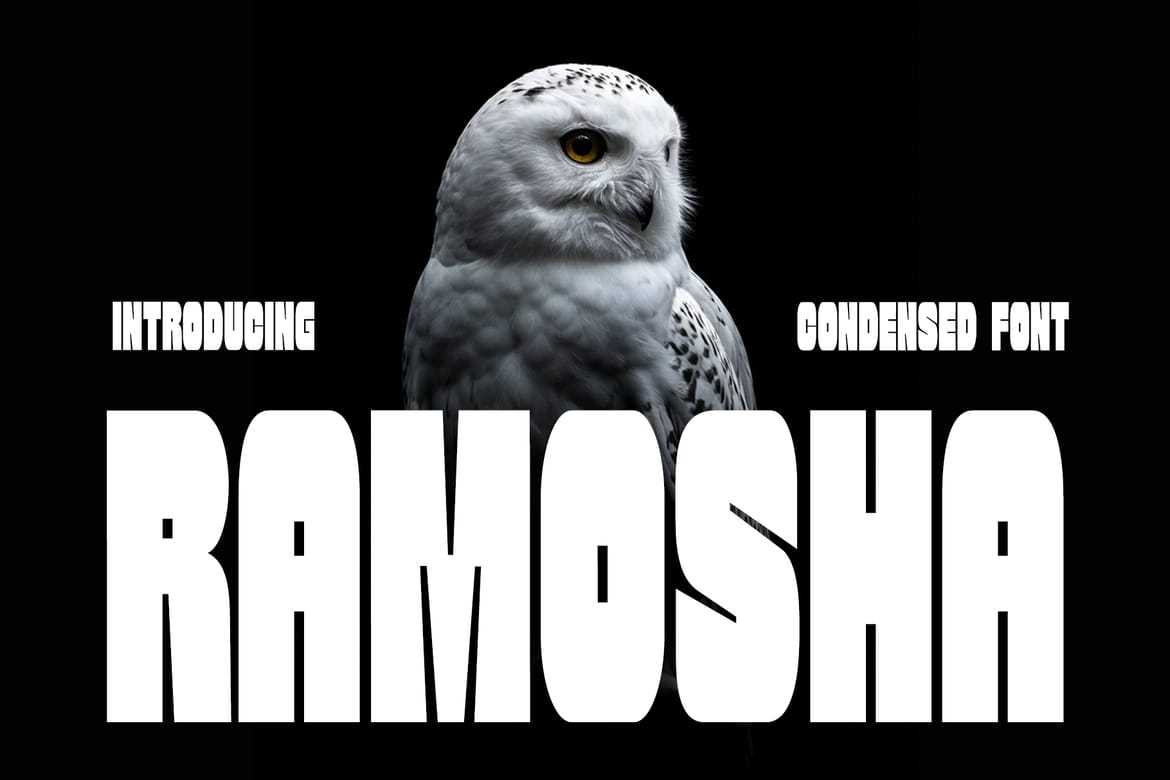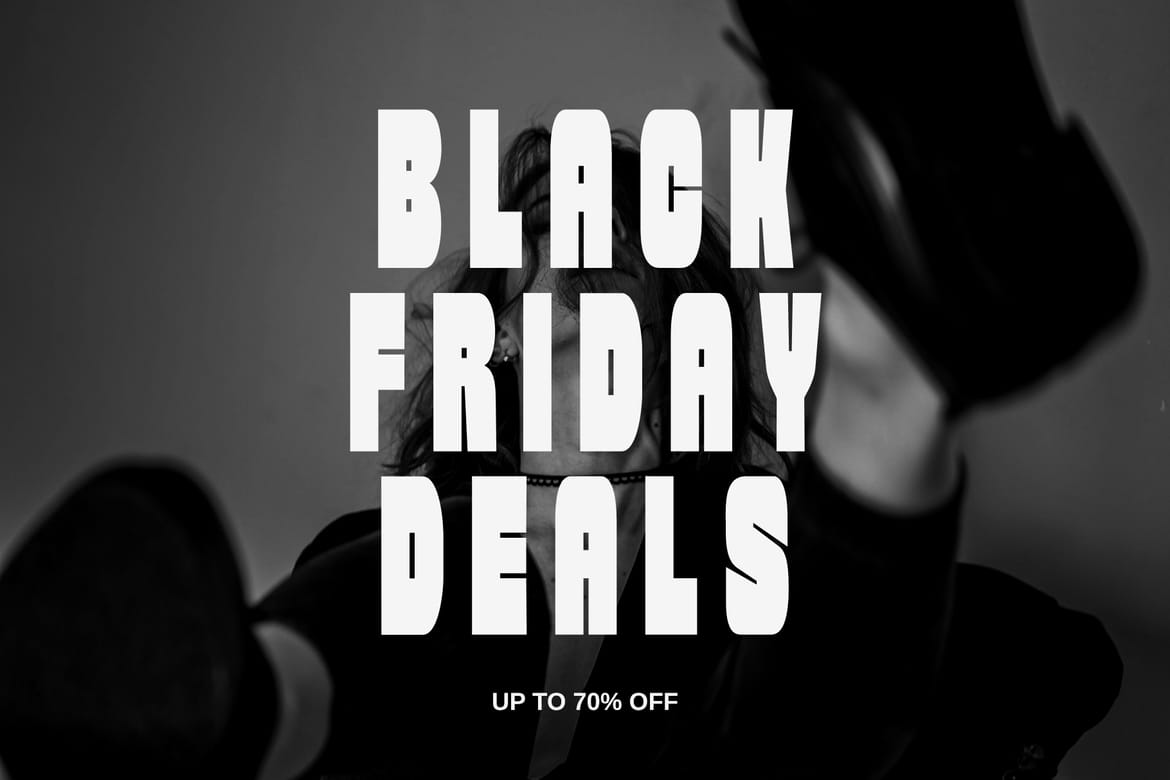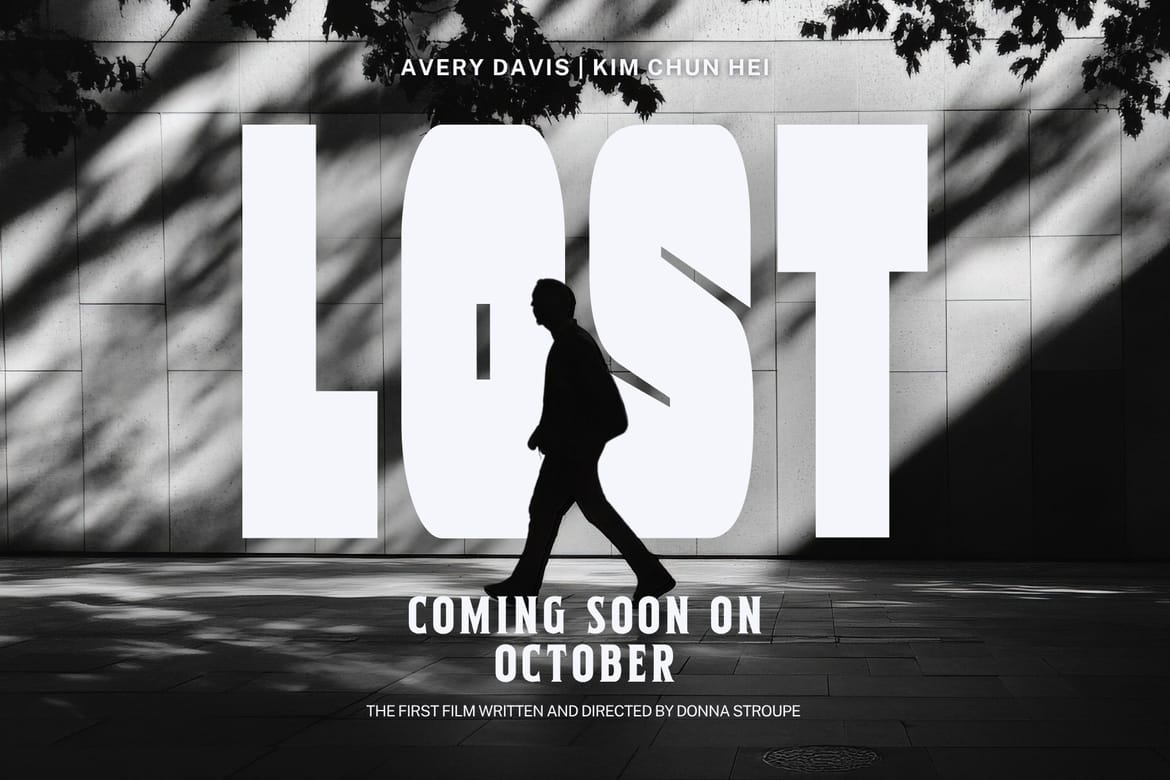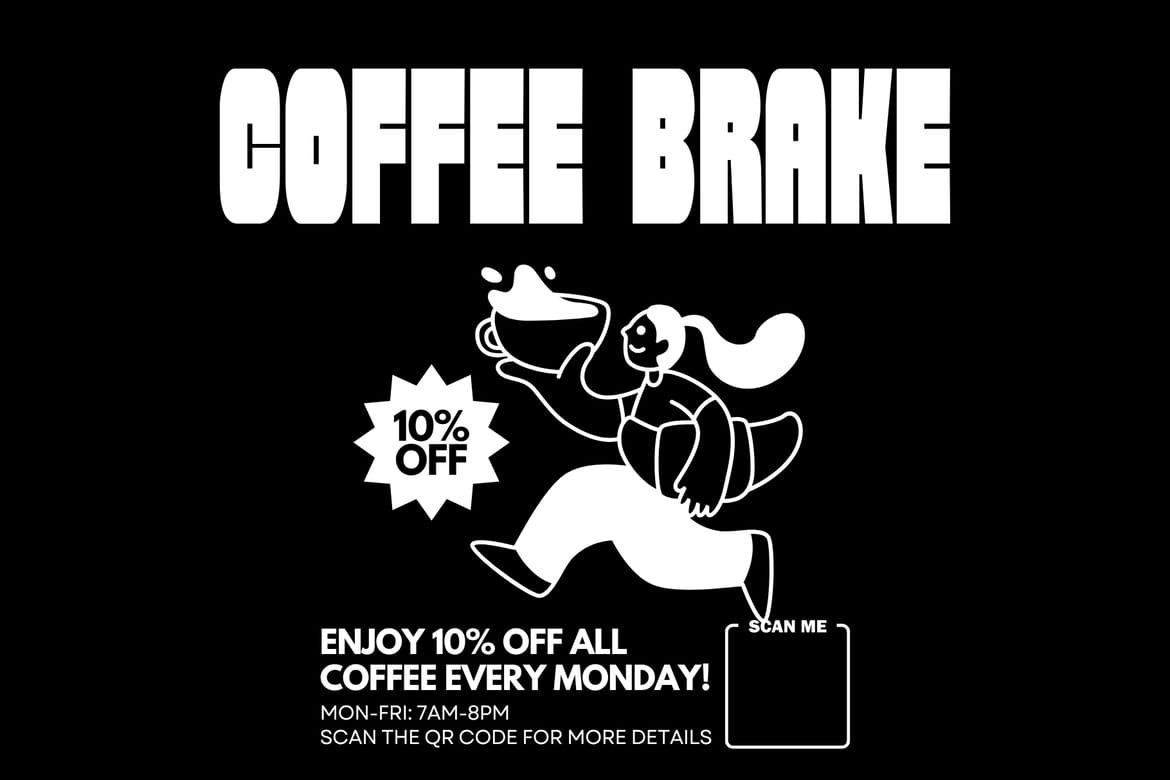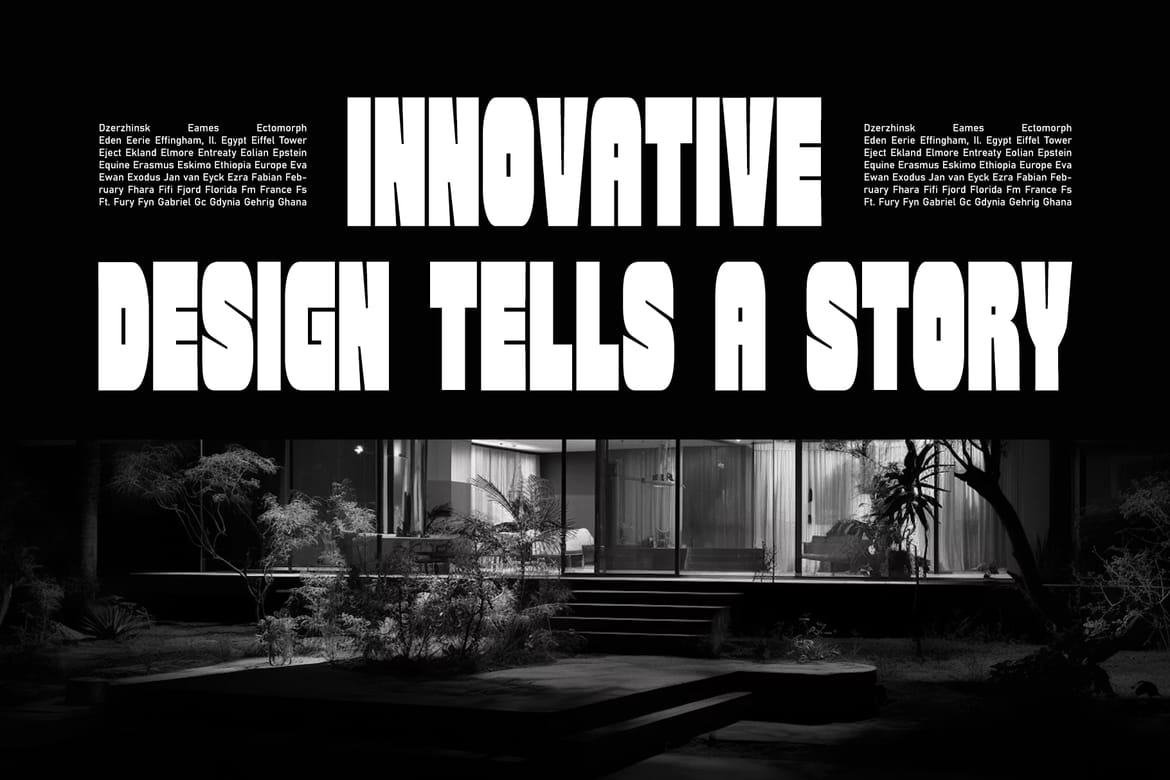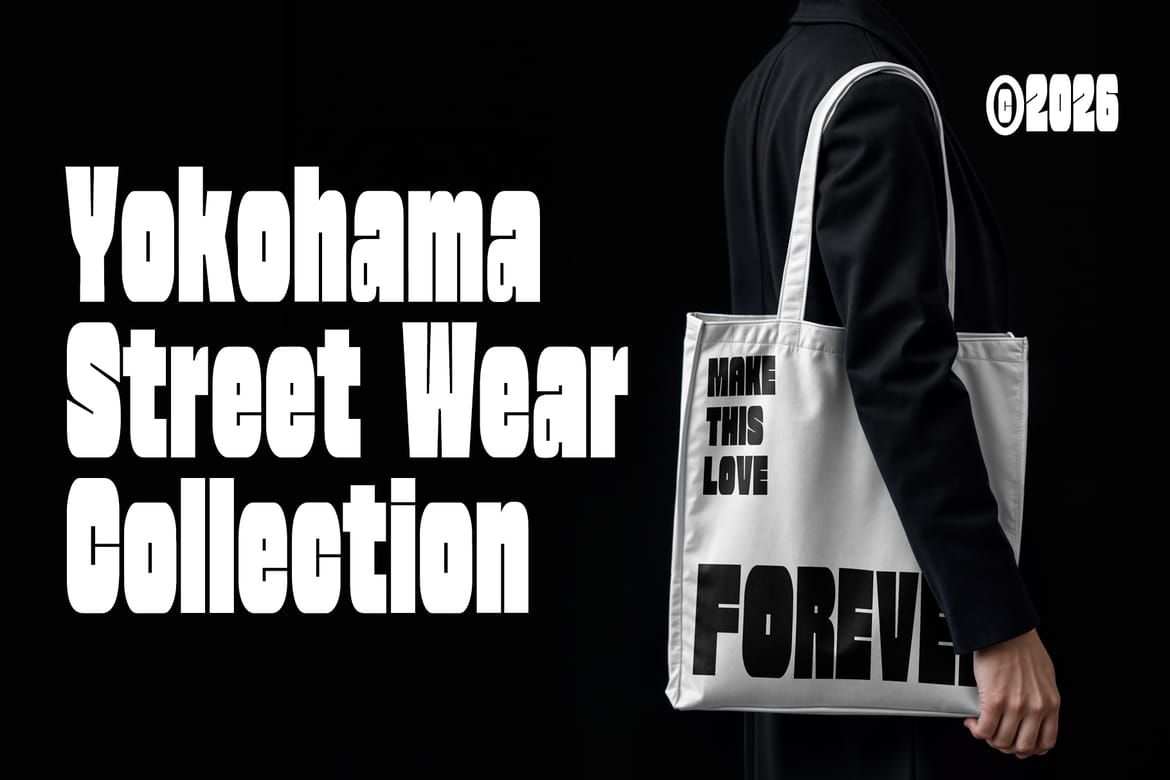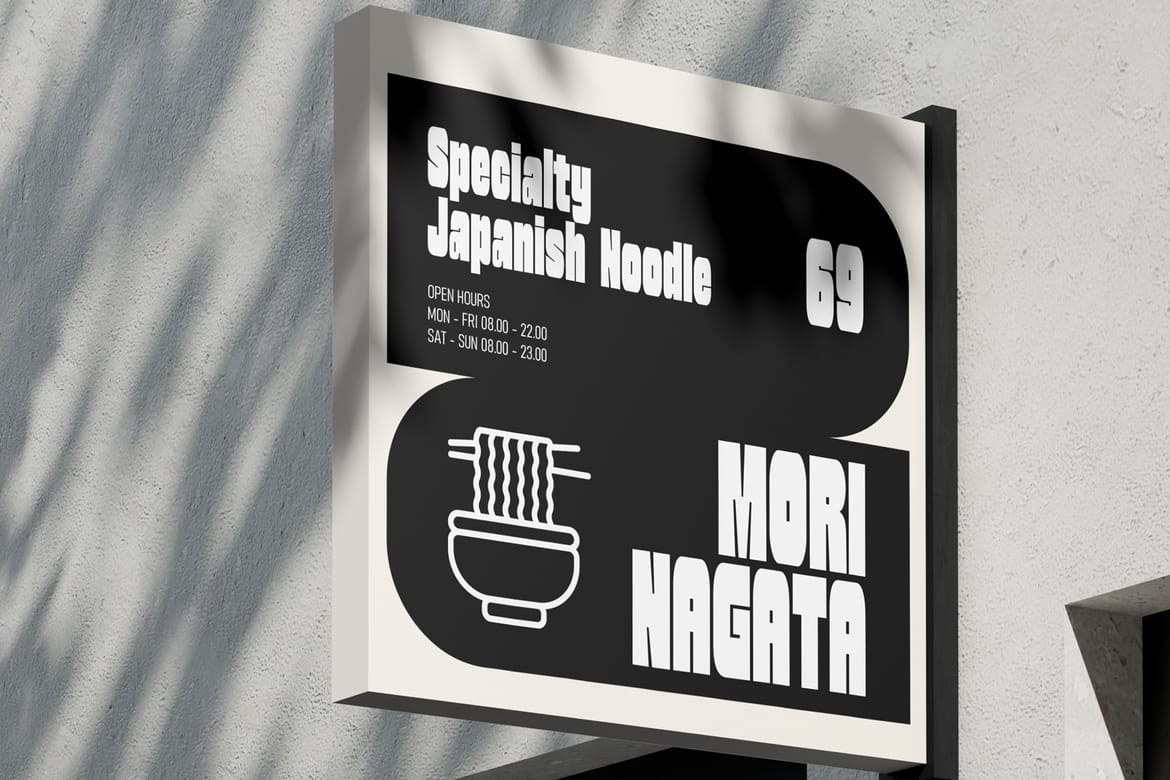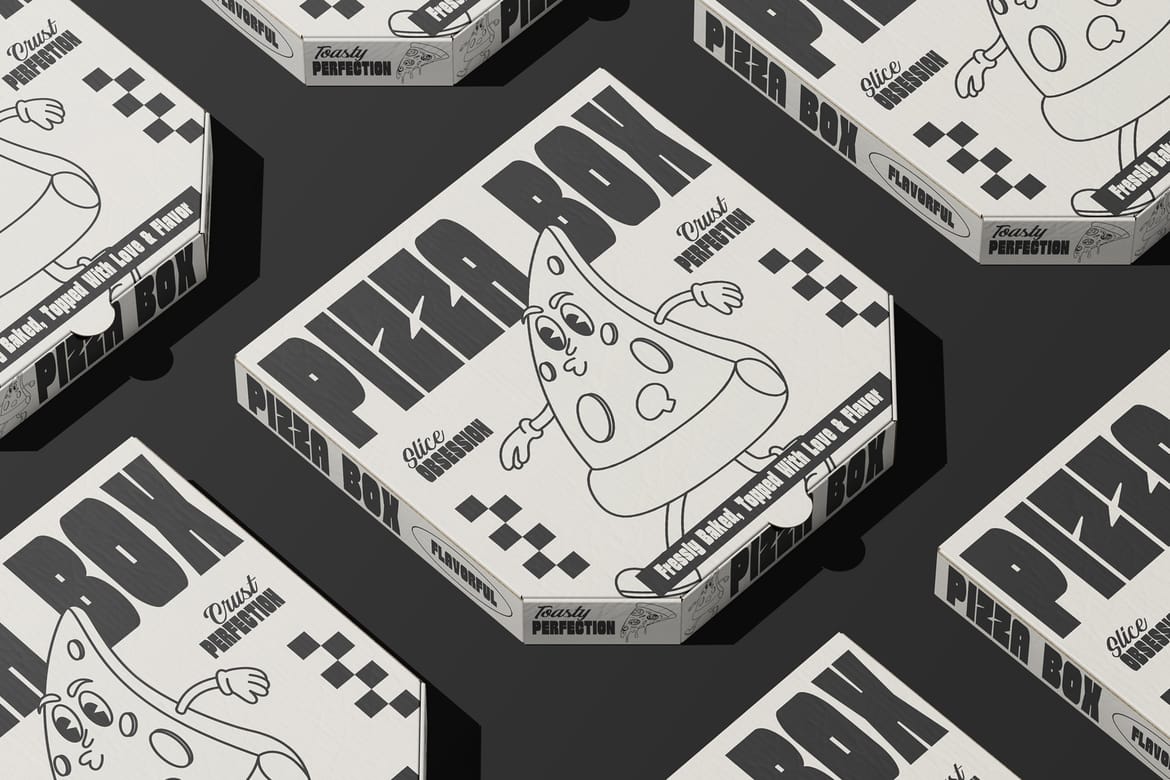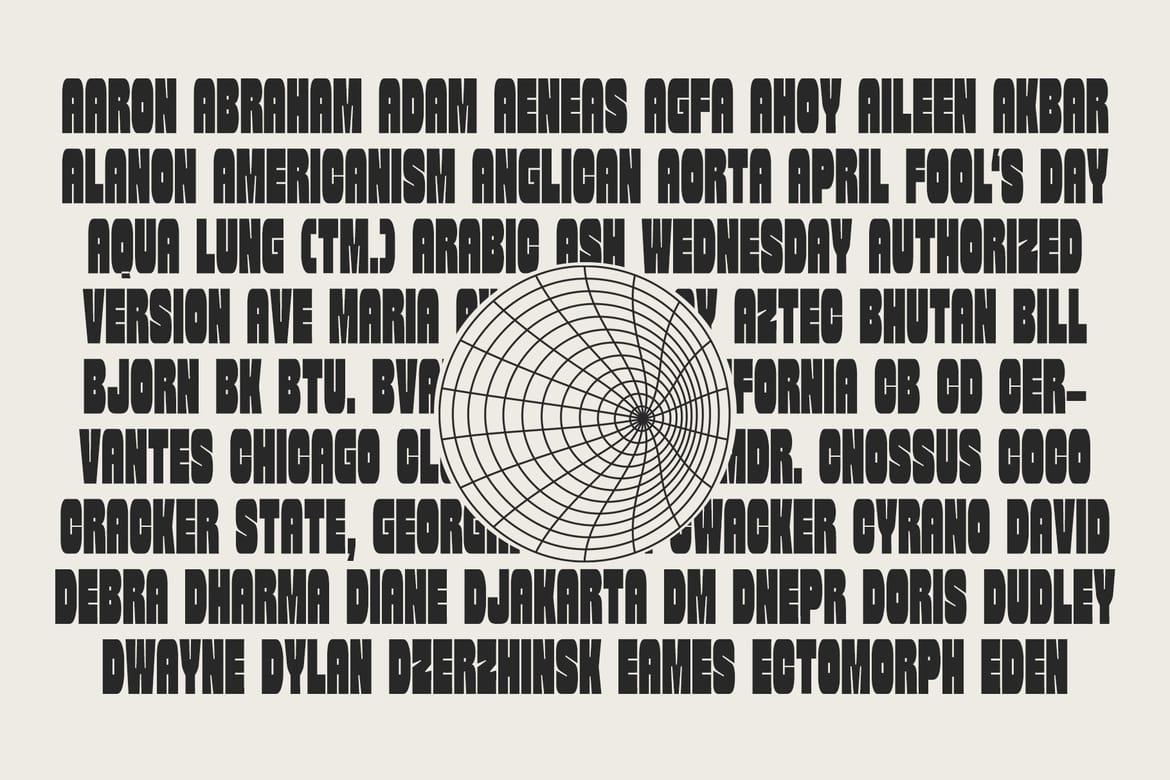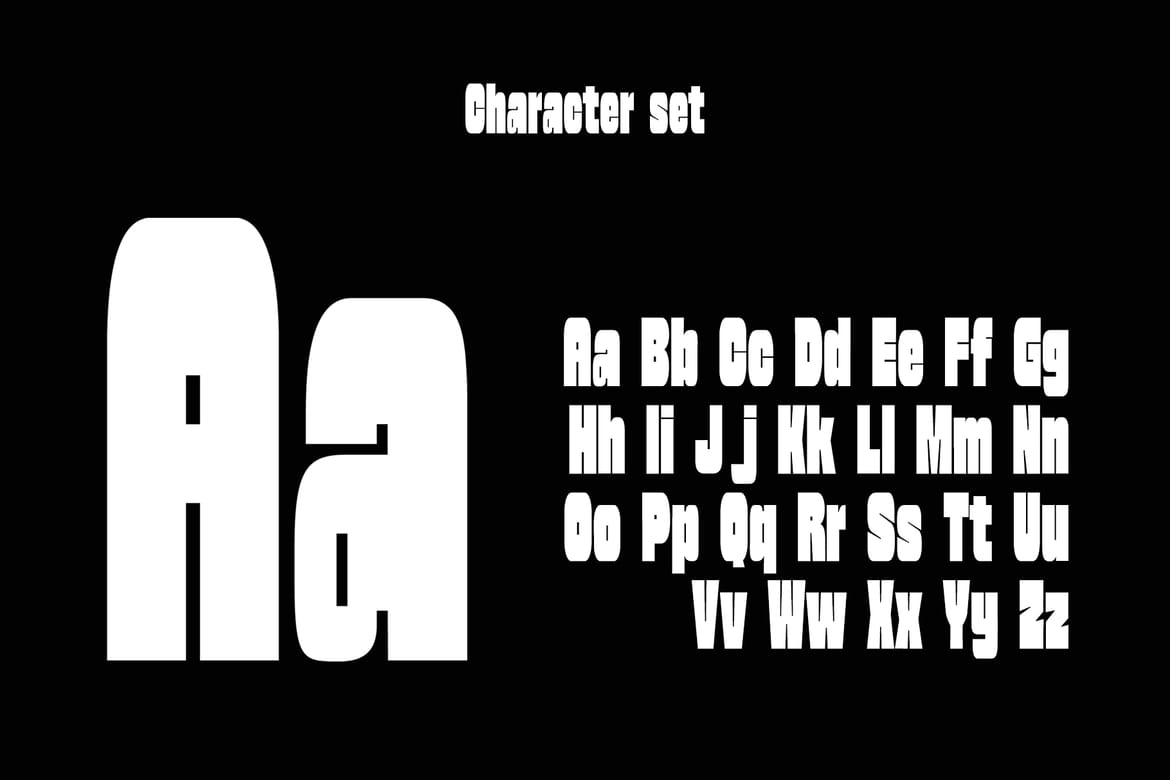
Ramosha is a bold condensed display font designed to create maximum visual impact with minimal space. Featuring tall, powerful letterforms and smooth rounded edges, Ramosha is perfect for headlines, posters, branding, sports graphics, movie titles, magazine covers, packaging, apparel, and social media designs. Its condensed structure allows you to fit more text into tight layouts while maintaining excellent readability and a commanding presence.